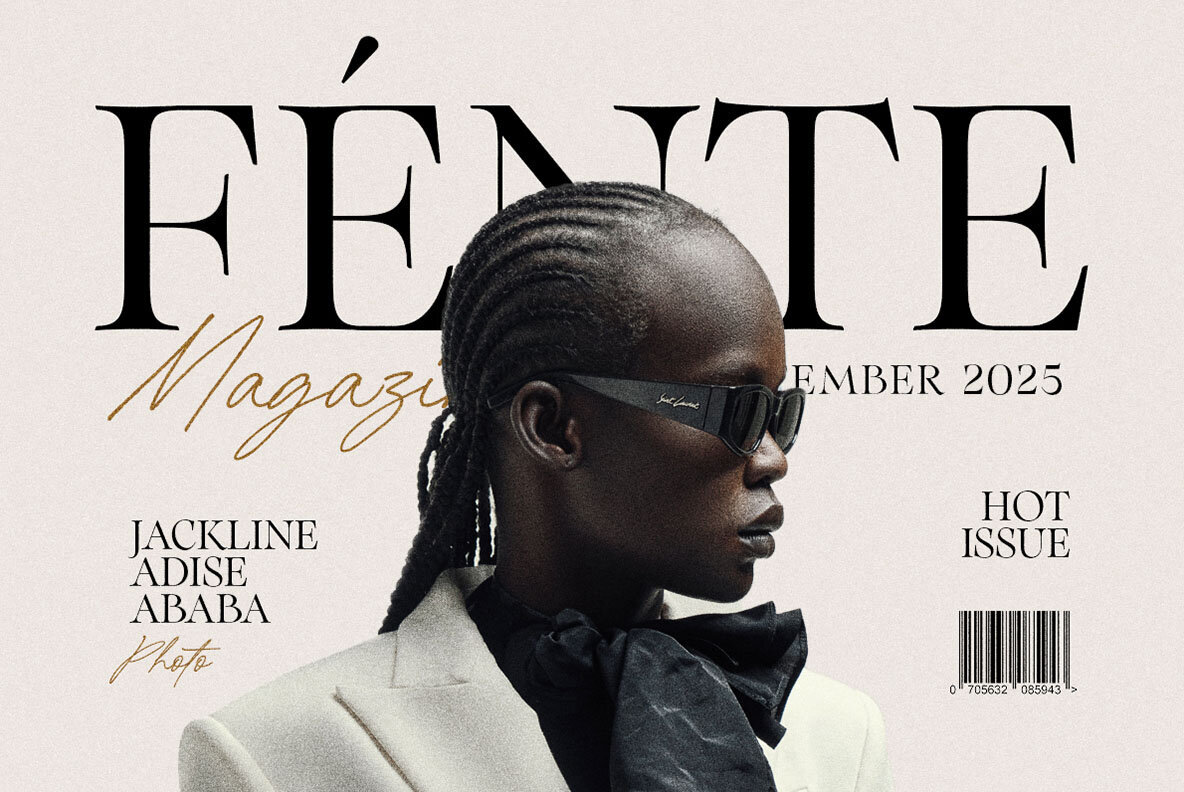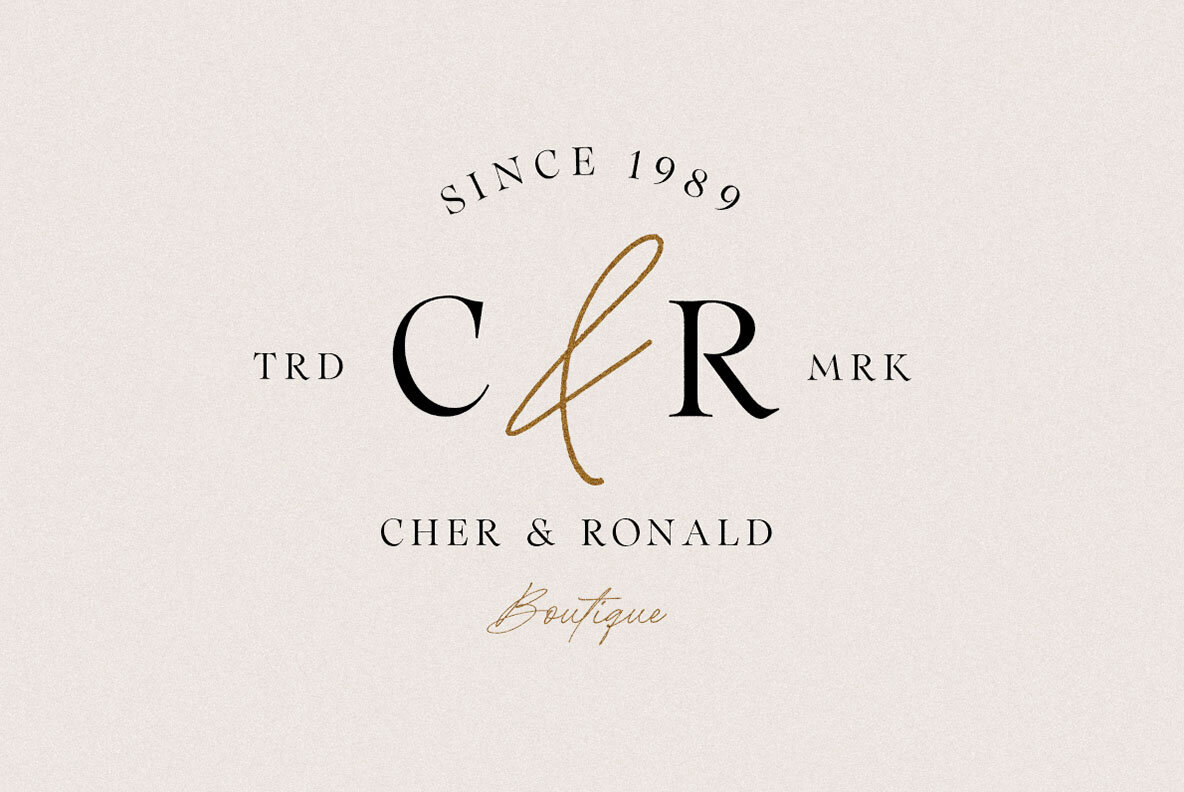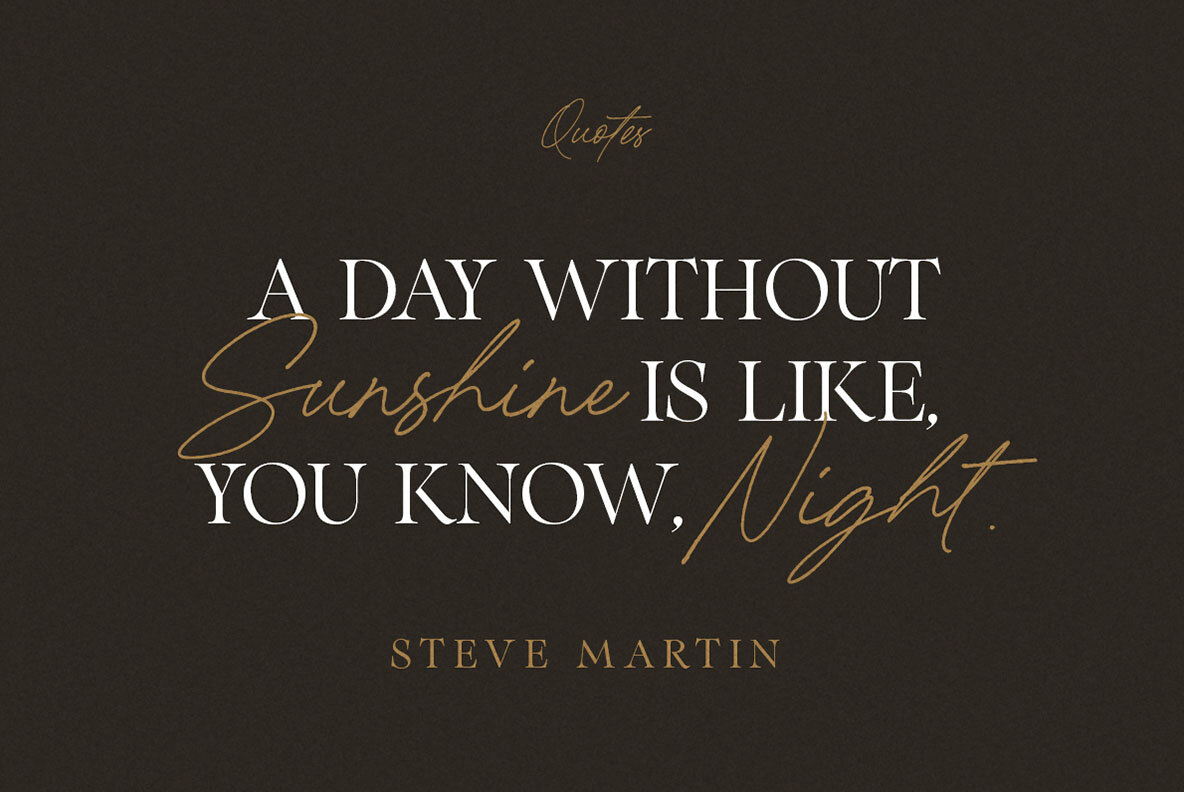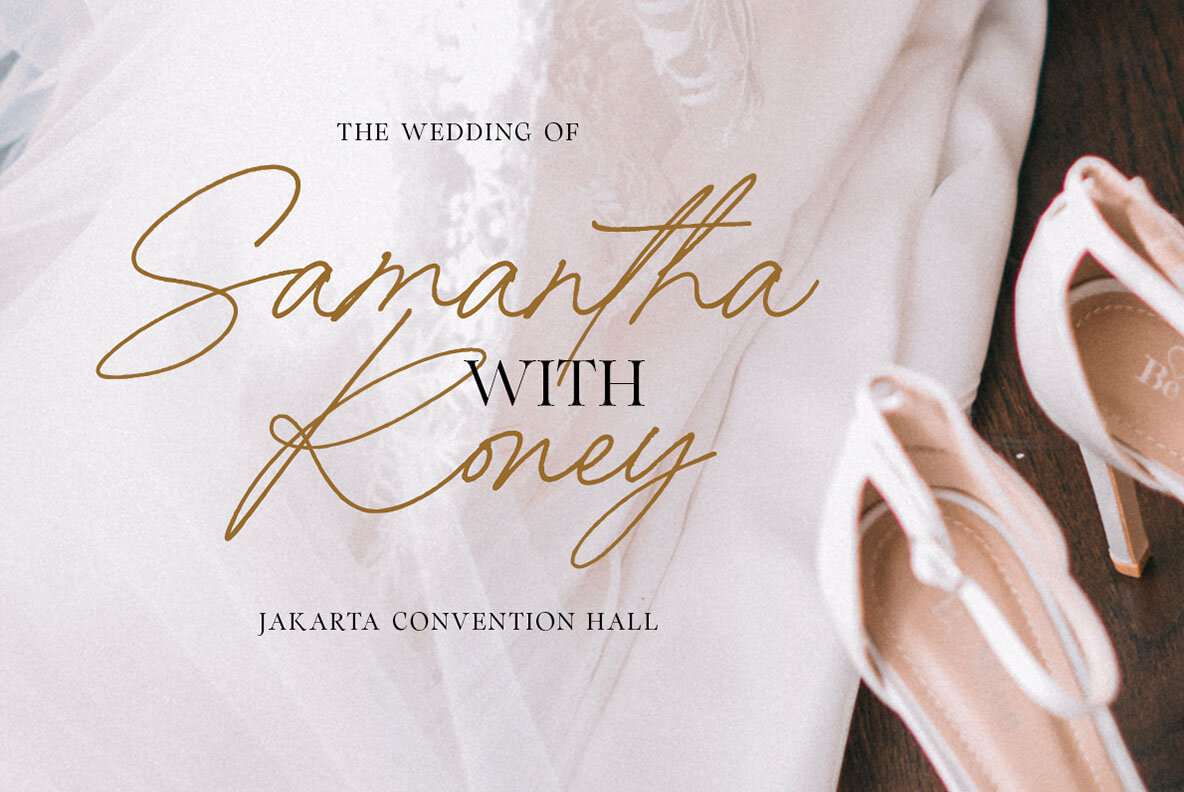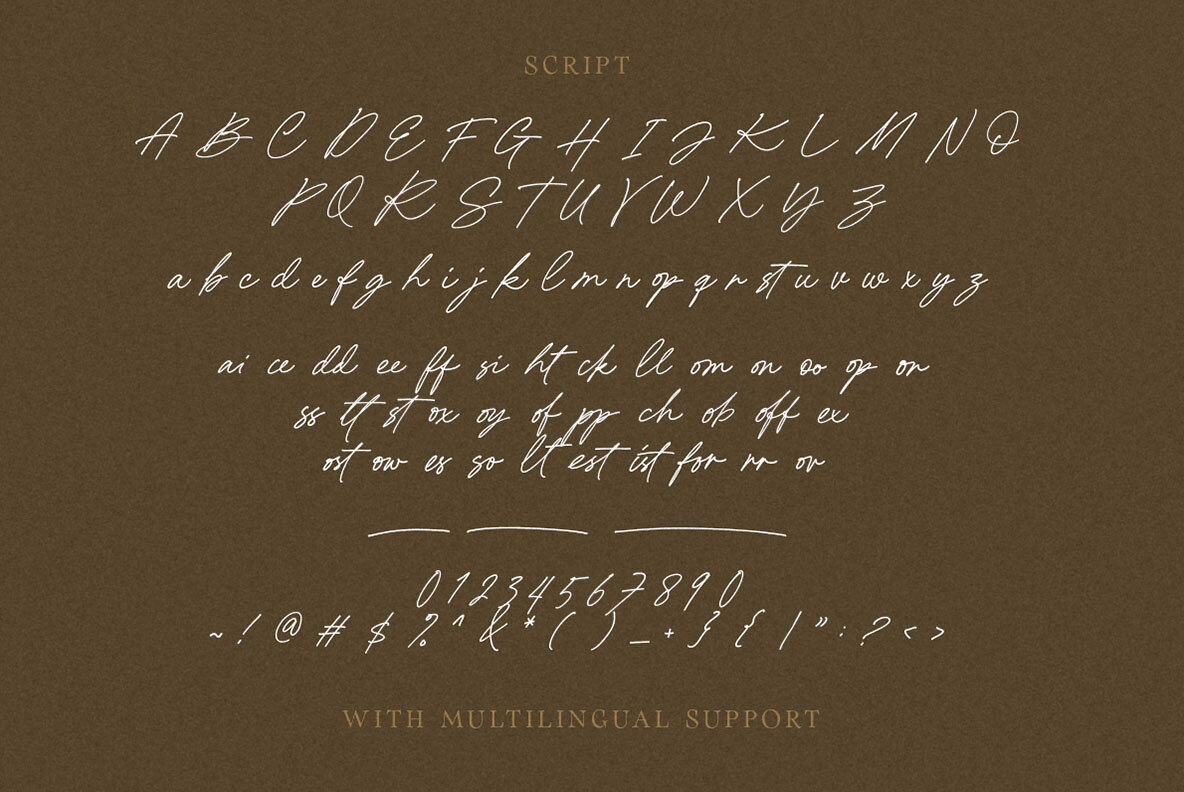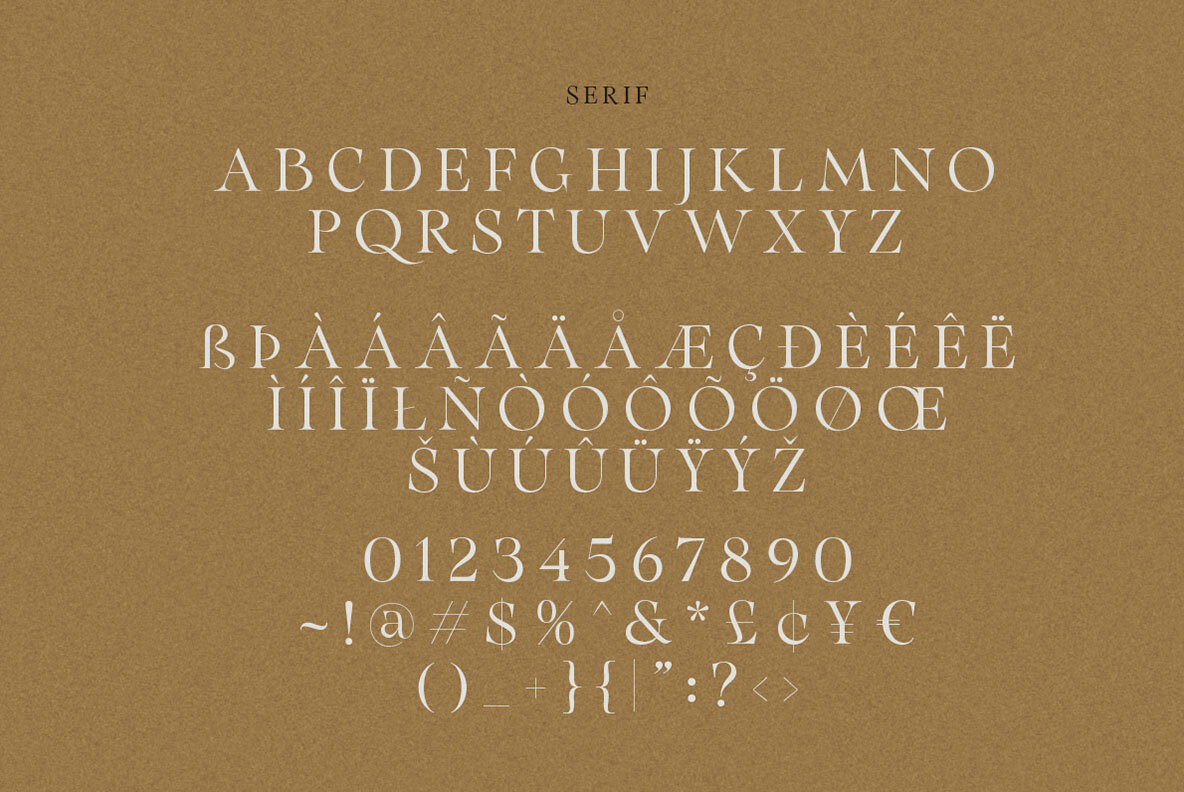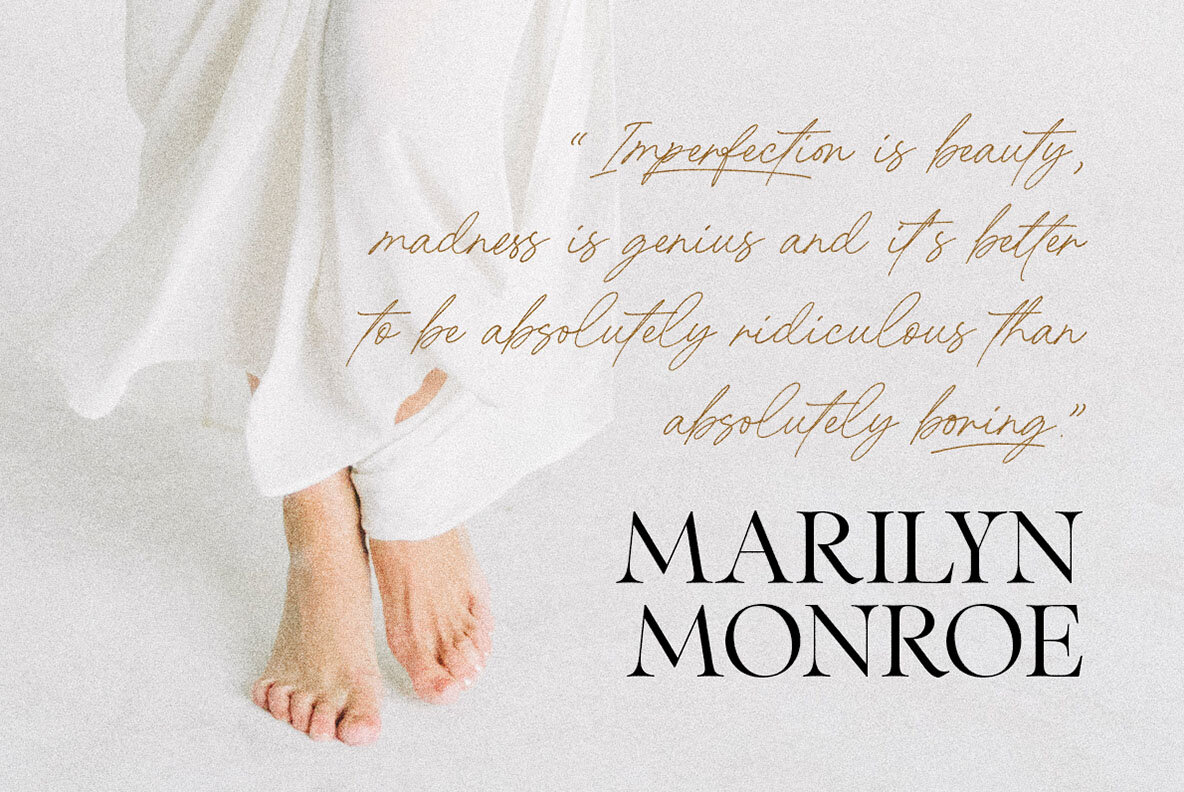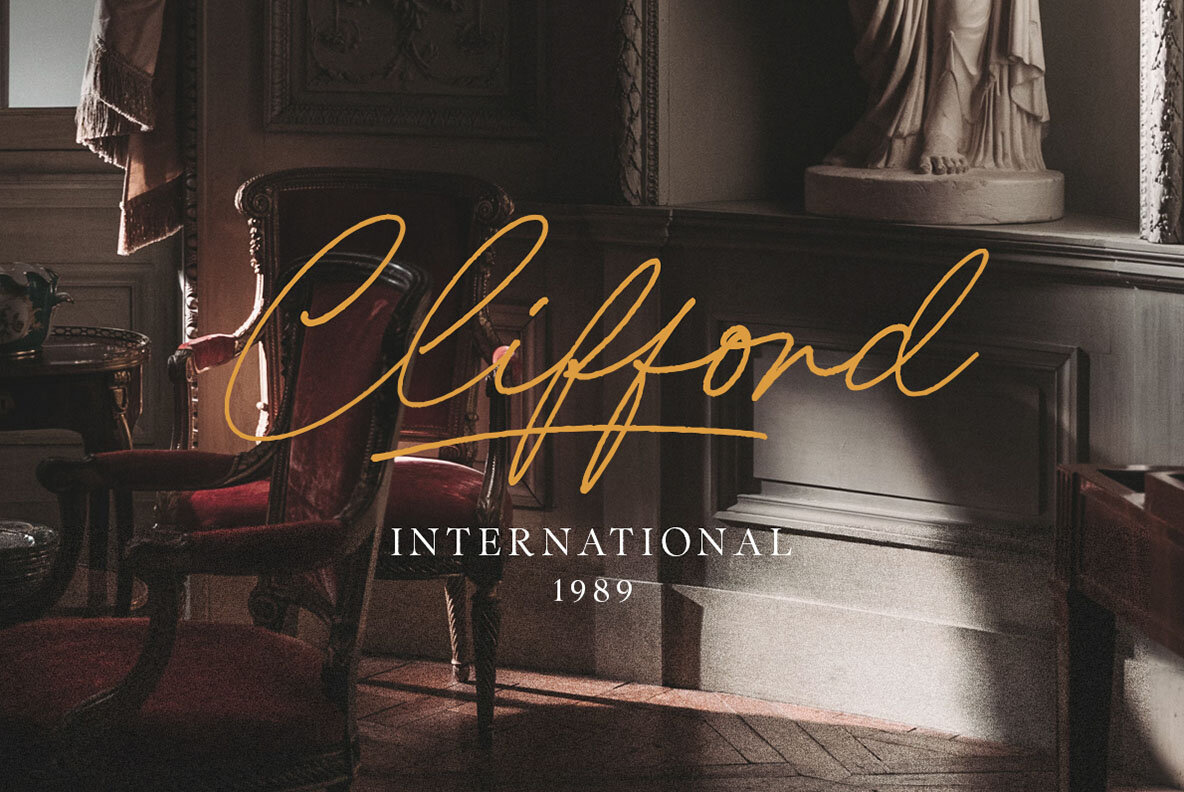
Heart Affairs Font
Discover a delightful blend of style and elegance with Heart Affairs, a font duo that fuses the refined beauty of serif fonts with the graceful touch of handwritten scripts. Crafted to weave together the timeless allure of serifs with the modern sophistication of scripts, this duo is perfect for various design projects. Ideal for creating wedding invitations, branding materials, or editorial layouts, Heart Affairs enhances your creations with its classic yet stylish versatility. To fully explore the potential of Heart Affairs, we recommend using design programs that support OpenType features and Glyphs panels, such as Adobe apps and Corel Draw, allowing you to access all glyph variations.Heart Affairs: Elegant Serif and Handwritten Script Duo